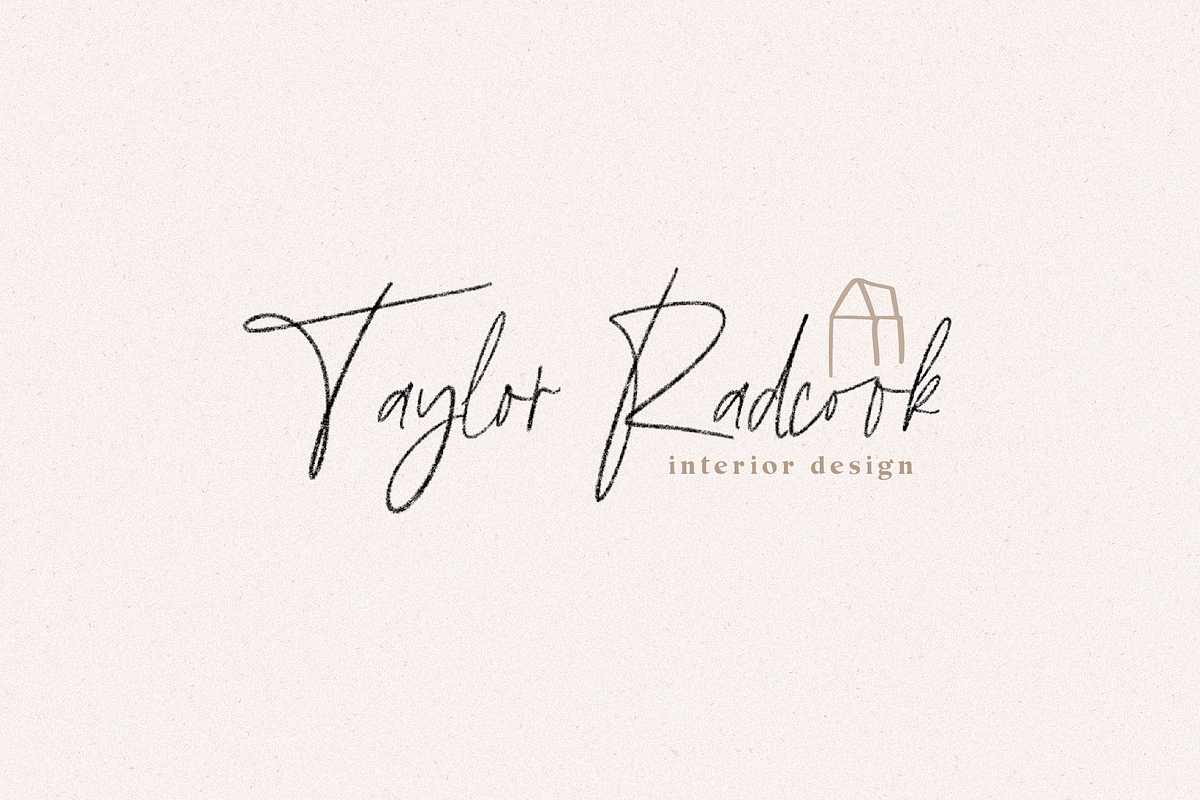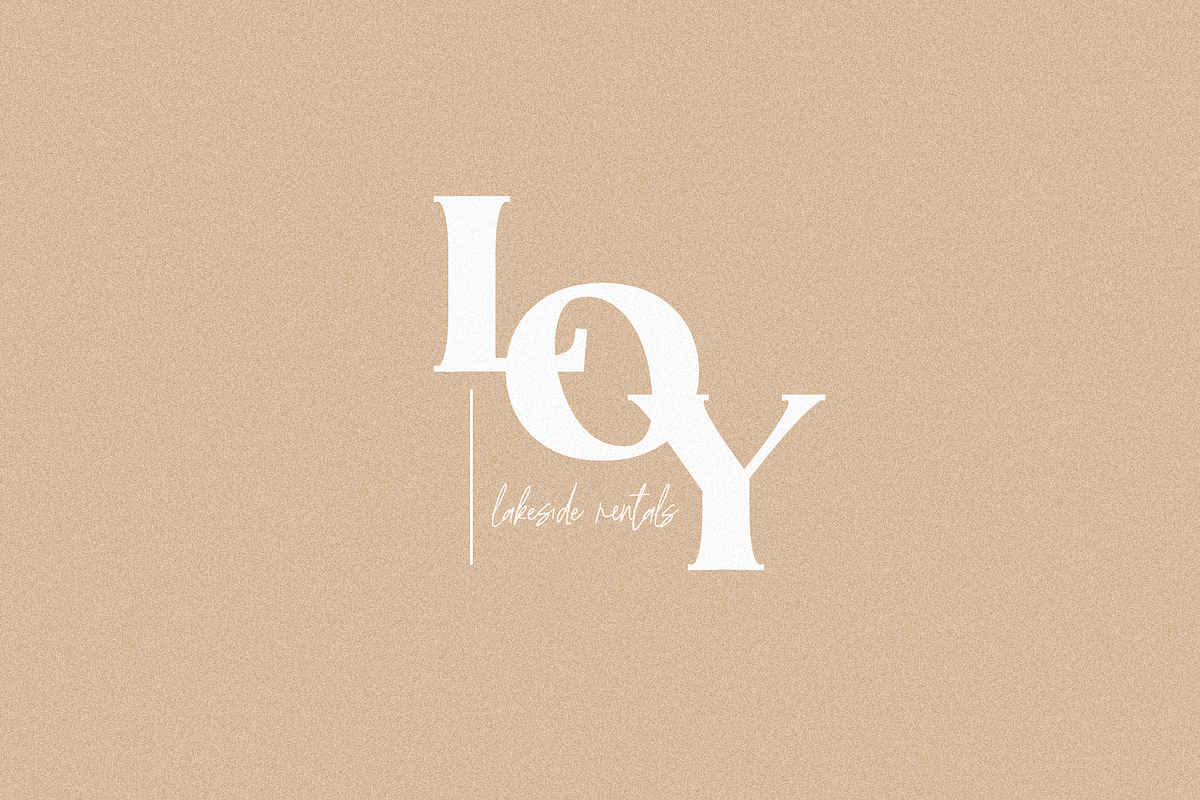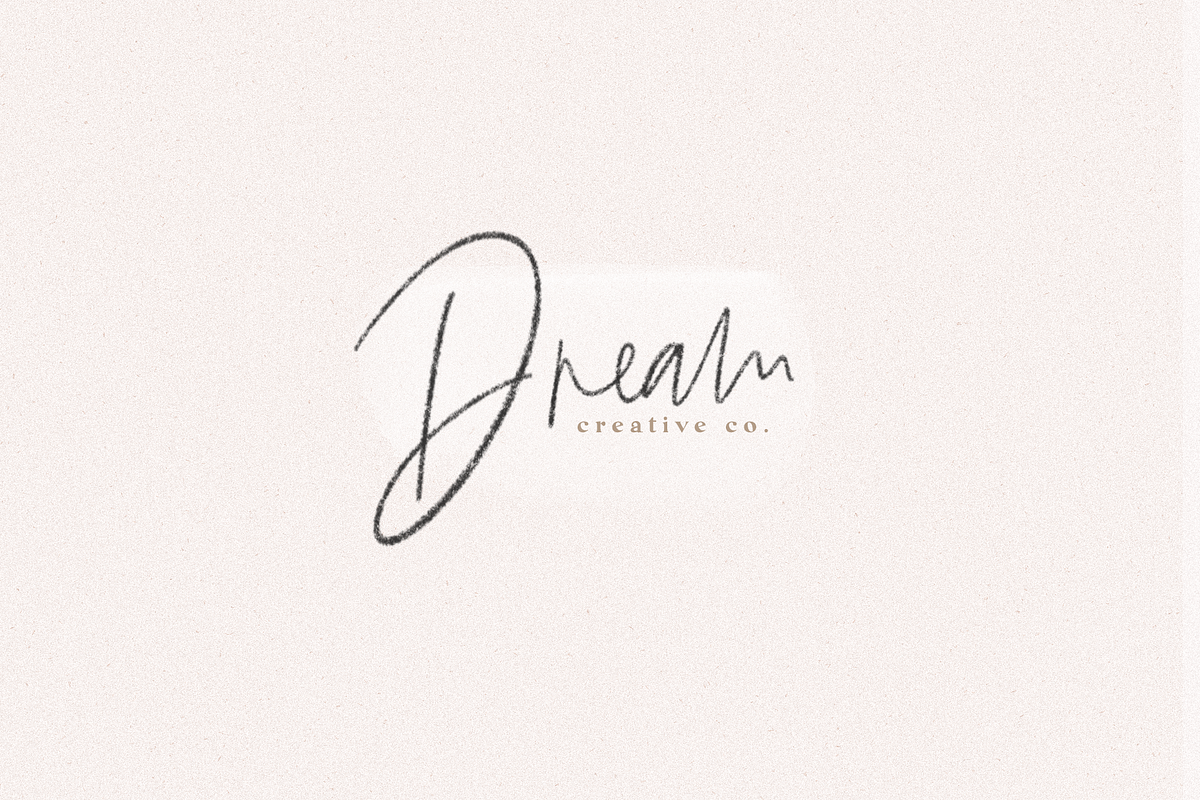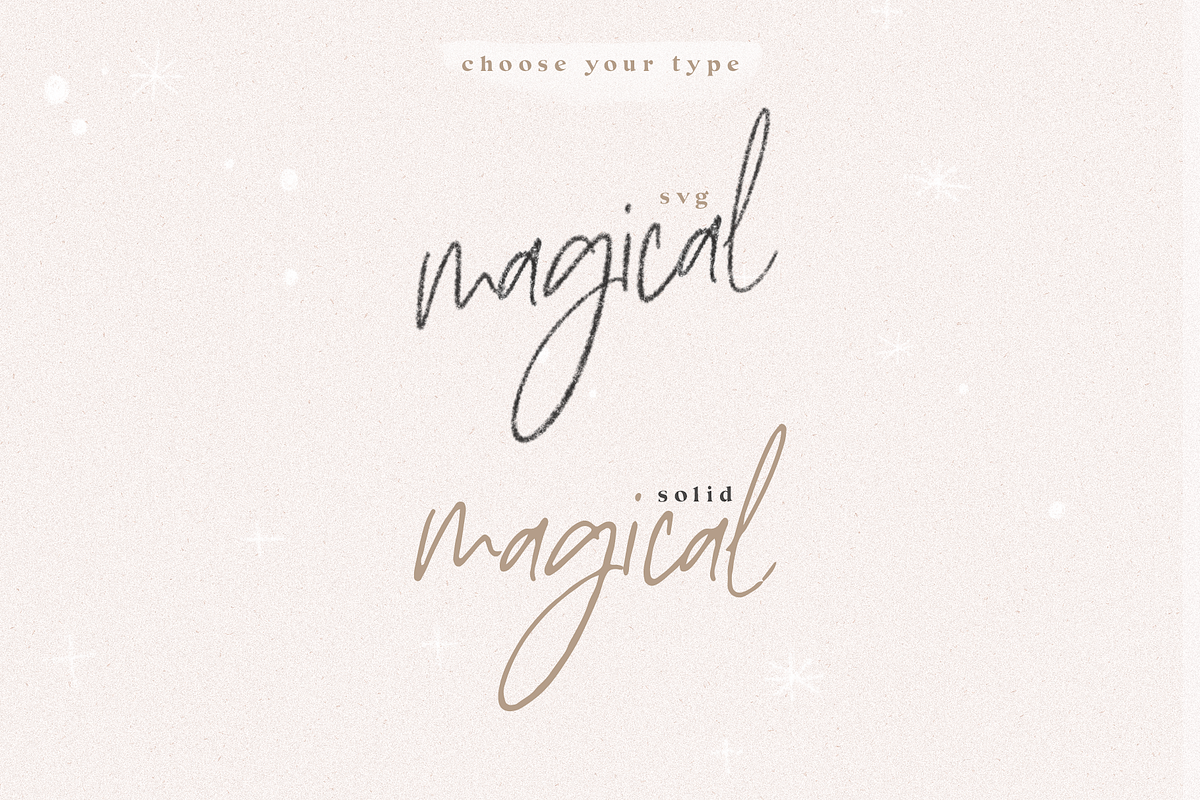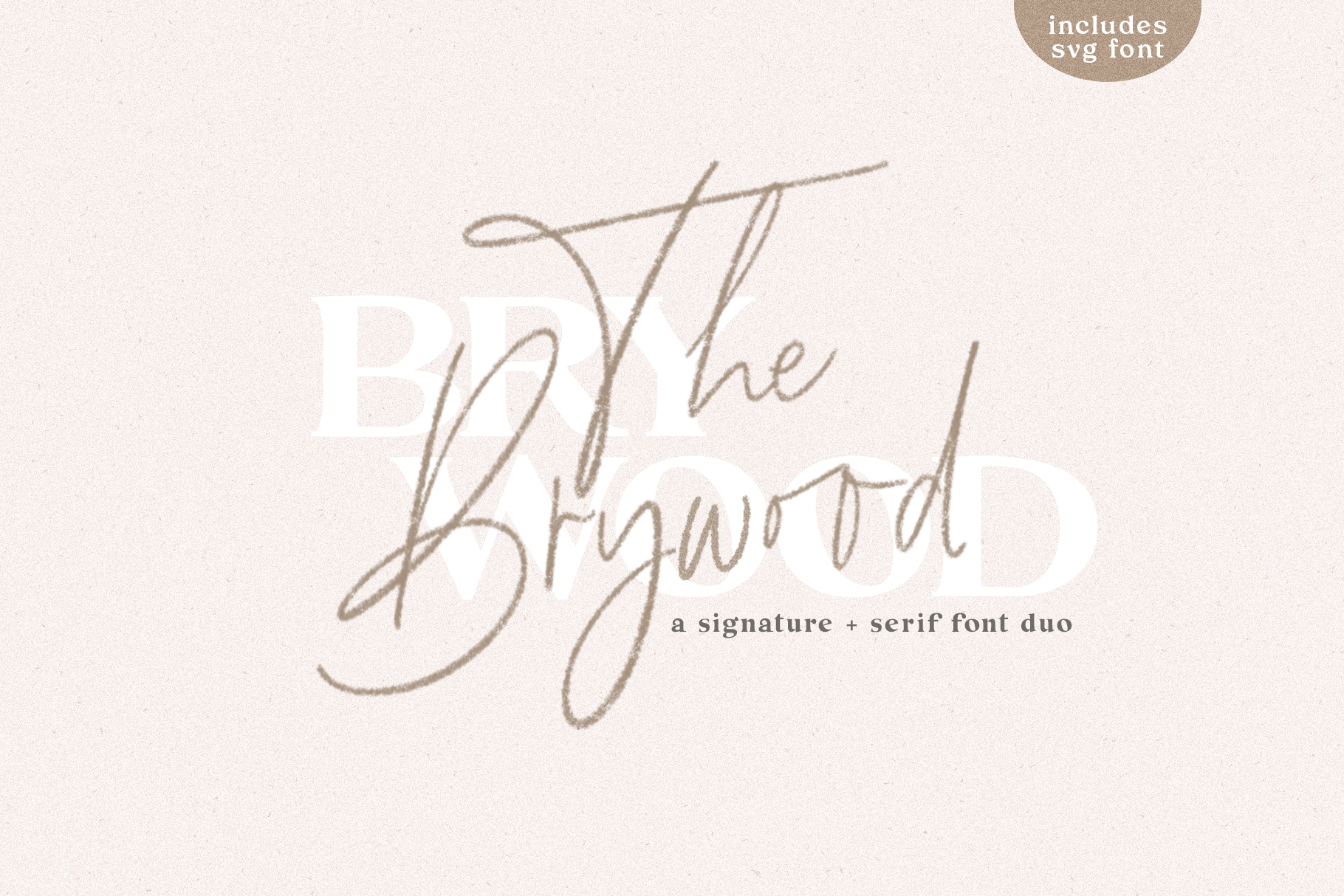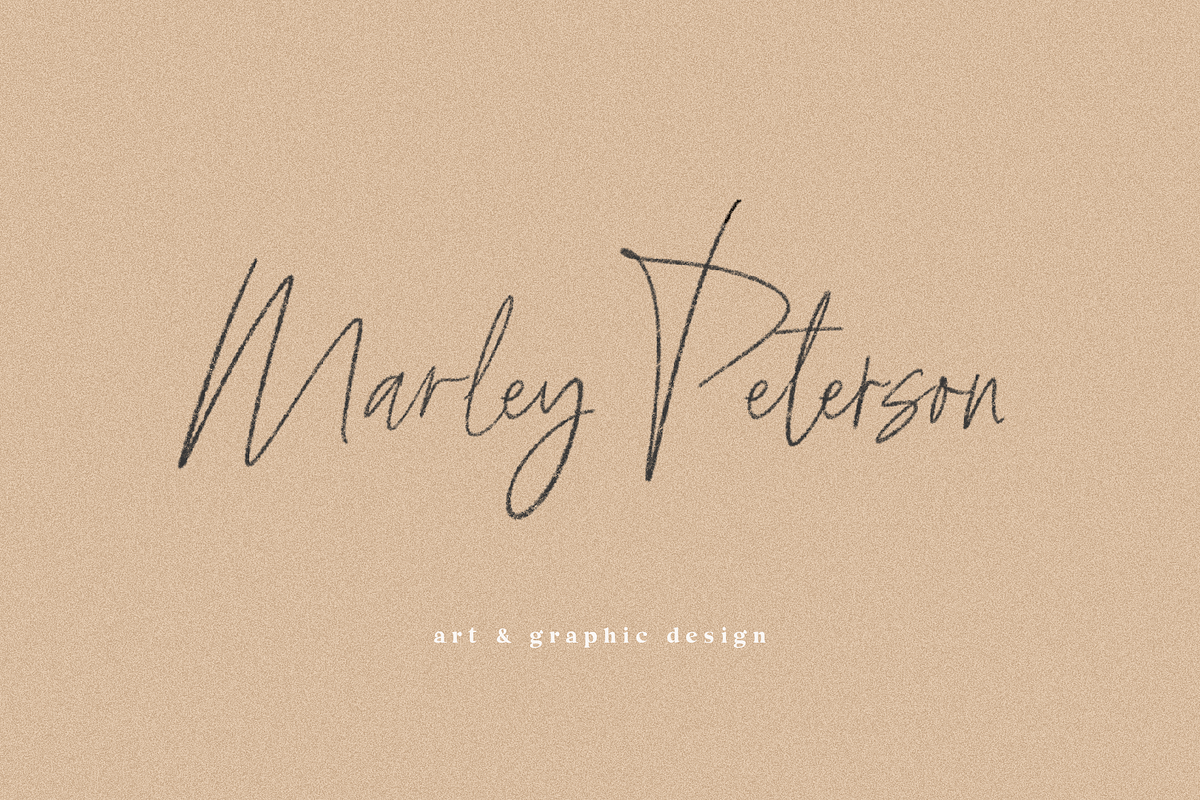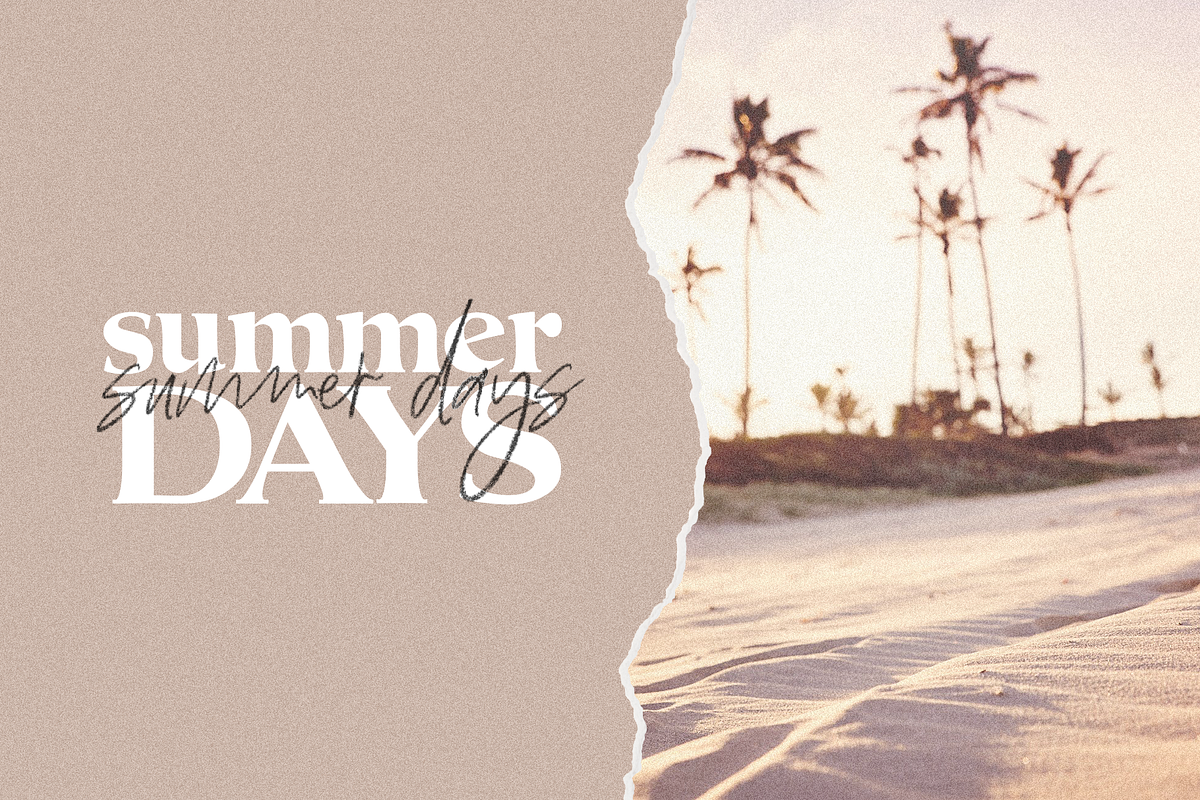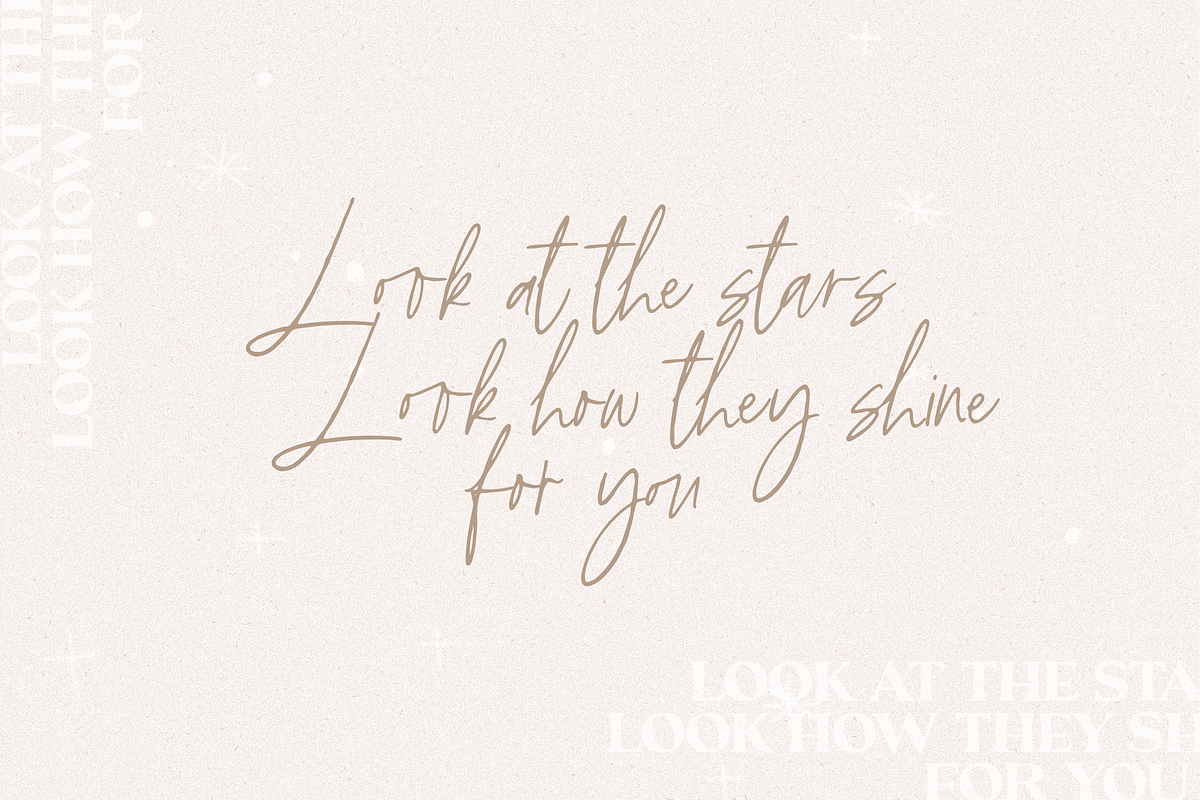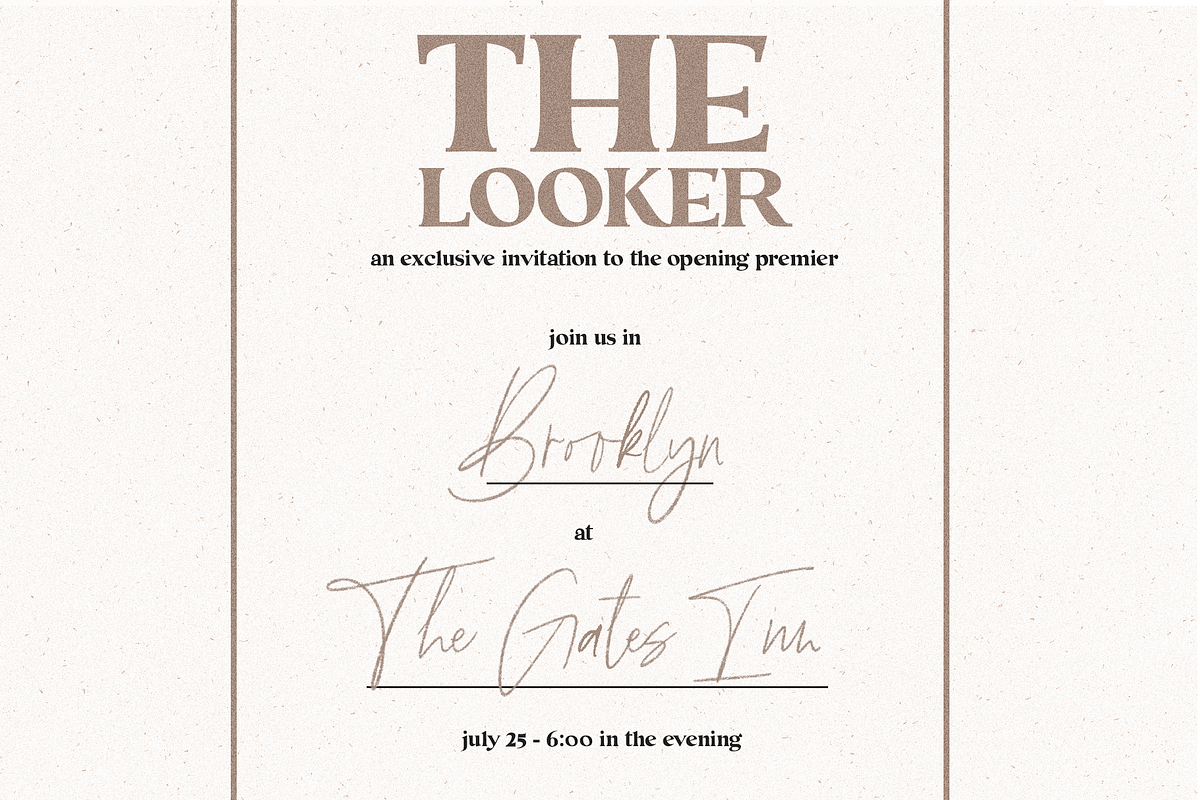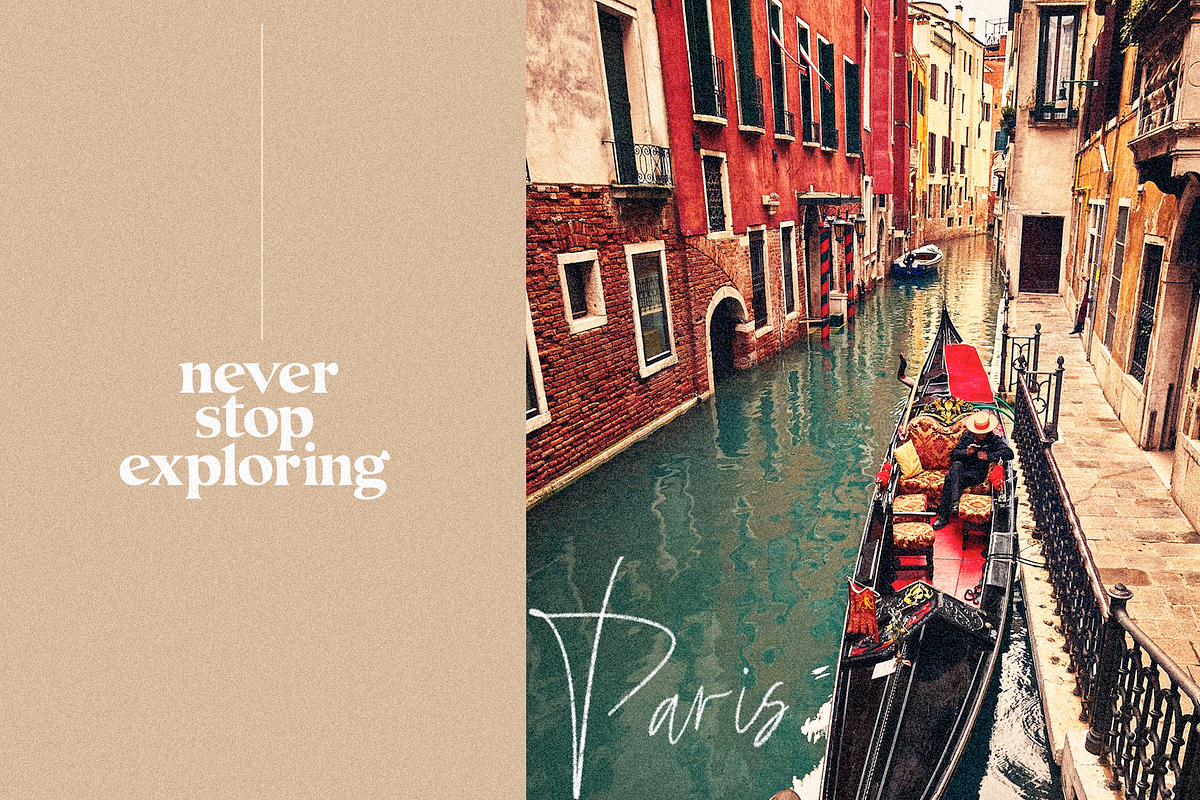
The Brywood - Script & Serif Fonts
The Brywood is handwritten font collection. The Brywood is perfect when you need to add a touch of class to your projects - while still keeping that fun, modern look!
The Brywood script style font comes in both SVG and regular OTF formats. The SVG will give you a delicate (yet, bold!) penciled look.
Each letter has been drawn by hand keeping the untouched texture for the SVG font. If you are unable to access SVG fonts, a solid style is accessible.
The Brywood is perfect for modern projects, blogs, logos, brandings, invitations and more!